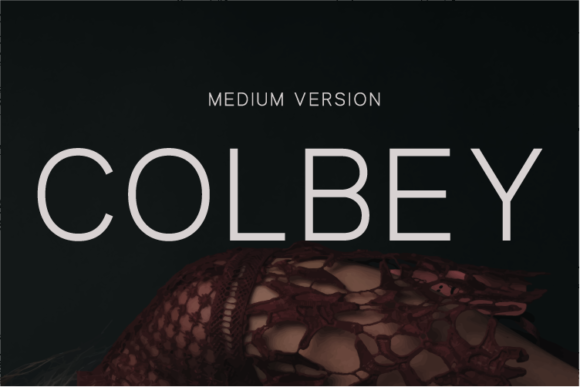
The Perfect Harmony of Typography: Unveiling the Colbey Medium Font
Have you ever found yourself stuck in front of a blank canvas, desperately searching for the perfect font to bring your design to life? The blank page stares back, taunting you with its emptiness, until suddenly, a spark of creativity strikes. You imagine a font that’s clean, elegant, and effortlessly stylish, one that elevates your design from mere mortal to masterpiece. This is the moment when the Colbey Medium Font becomes your trusted partner in creative endeavors.
Designed with precision and a keen eye for detail, the Colbey Medium Font is a versatile sans serif font that seamlessly blends functionality and aesthetics. Its soft edges and harmonious appearance make it an ideal choice for branding, logos, web design, and more. For designers, the Colbey Medium Font offers a valuable asset – a reliable companion that never fails to elevate their designs and leave a lasting impression.
Colbey Medium Font Key Features
- Unique Characteristics: Colbey Medium features a unique blend of modern and classic design elements, with a subtle flair and refined texture that sets it apart from other sans-serif fonts.
- Font Style: The font is available in a single weight, medium, which provides a balanced and neutral tone suitable for body text, headings, and titles.
Colbey Medium Font Review
As a designer, I had the opportunity to work with the Colbey Medium Font, and I’m sharing my honest thoughts with you. Here’s what I liked:
- ✨ The font has a great balance between modernity and classic feel, making it versatile for a wide range of projects.
- ✨ Colbey Medium is highly legible, even at smaller font sizes, which is crucial for body text and smaller displays.
- ✨ The font’s weight is well-balanced, neither too light nor too heavy, making it perfect for headings and titles.
- ⚠️ The font’s range of weights and styles is limited, which may not be ideal for projects requiring a wide range of font sizes and styles.
- ⚠️ The font’s character set is not extensive, which may cause issues with certain languages or special characters.
- ⚠️ The font’s compatibility with certain operating systems and browsers may be inconsistent, which could lead to display issues.
Overall, the Colbey Medium Font is a solid choice for projects requiring a clean, modern look. While it has its limitations, it’s a great addition to any designer’s toolkit. With some careful planning and consideration of the project requirements, Colbey Medium can deliver great results.
Tips for Getting the Most Out of Colbey Medium Font
Use Colbey Medium Font for titles and headings to add a touch of elegance and sophistication to your designs.
Combine Colbey Medium Font with other fonts to create a unique and visually appealing typography.
Experiment with different font sizes and styles to find the perfect balance for your design.
Use Colbey Medium Font for:
Business cards and marketing materials
Brand identities and logos
Is the Colbey Medium Font optimized for digital use?
Yes, the Colbey Medium Font is optimized for digital use and is designed to look great at a variety of font sizes and resolutions. It includes features such as hinting and kerning to ensure that it displays clearly and consistently across different devices and screens.